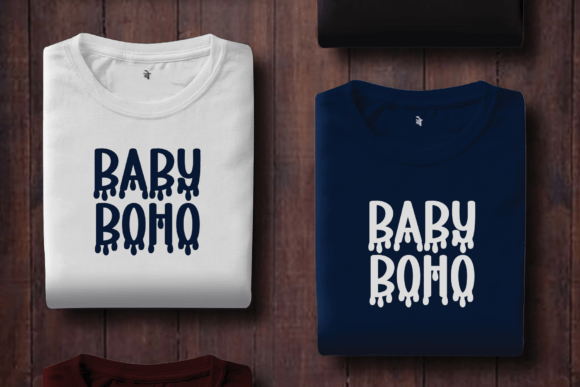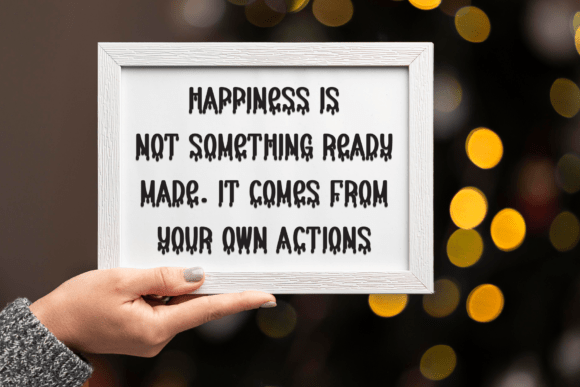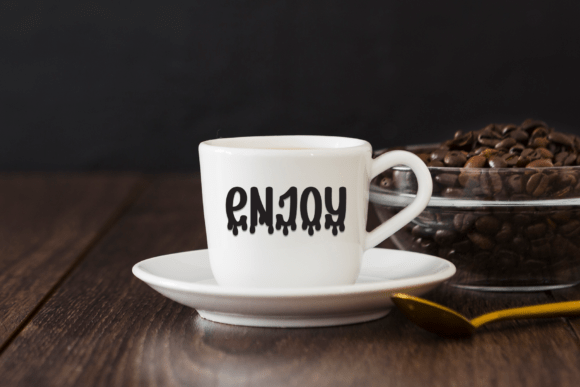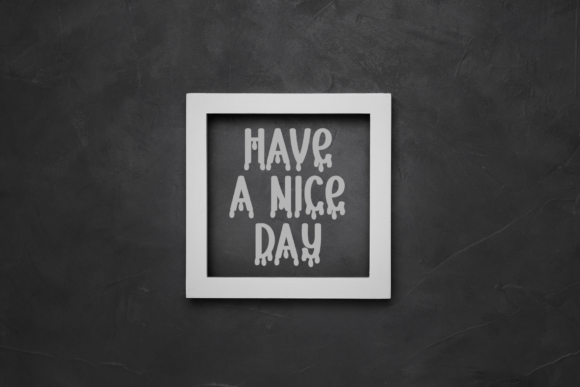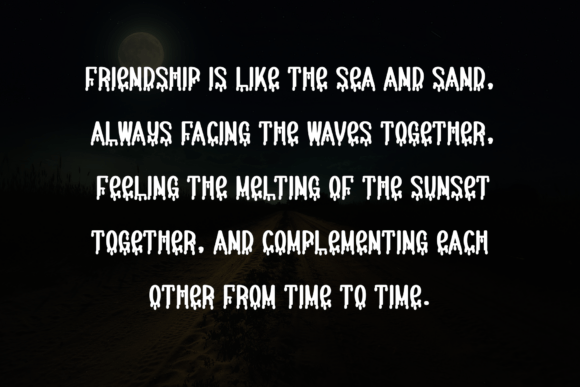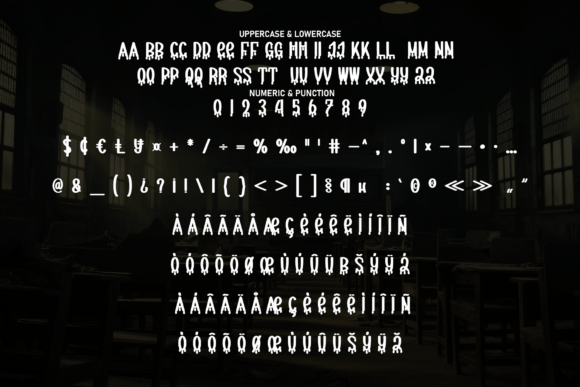
Introduction to Horror Varsity Font
Have you ever found yourself staring at a blank canvas, trying to conjure up the perfect design for your next creative project? The cursor blinks impatiently as your mind wanders through a sea of possibilities. Suddenly, the perfect font pops into your head, and you know exactly what you need to bring your vision to life. For many designers, this moment is the spark that ignites their creative fire.
One font that can help you achieve this moment is the enigmatic Horror Varsity Font. This unique display font is a game-changer for designers looking to add a touch of quirkiness to their work. With its high-quality design and transparent background, it’s the perfect resource for anyone seeking to elevate their creative project.
Key Features of Horror Varsity Font
- Unique, hand-drawn design with a spooky and eerie feel, perfect for creative projects.
- High-quality font with a transparent background, allowing for easy use in various creative projects.
- Features a bold, gothic-inspired design with intricate details and textures, making it perfect for horror-themed projects.
- Easy to use and customize, with a wide range of styling options to suit your creative project’s needs.
Honest Review: Horror Varsity Font
I recently stumbled upon the Horror Varsity Font while searching for a free download to enhance my design project. Initially, I was drawn to its unique, retro aesthetic and high quality design. After using it in a few creative projects, I was impressed by its versatility and range of applications.
- ✨ Unique, distressed design that adds a vintage touch to any project.
- ✨ High-quality design that’s perfect for print and digital projects.
- ✨ Transparent background makes it easy to use in various design scenarios.
- ⚠️ Limited character set, which may not be suitable for longer text-based projects.
- ⚠️ May not be the best choice for projects that require a clean, minimalist design.
Overall, I’m quite impressed with the Horror Varsity Font. It’s a great addition to any designer’s toolkit, especially for those working on creative projects that require a unique, high-quality font. With its free download and transparent background, it’s an excellent resource to have on hand.
To get the most out of the Horror Varsity Font, use it in creative projects that require a high-quality, bold font. You can also pair it with other fonts to create a unique design. Additionally, make sure to use a transparent background to ensure the font stands out.
The Horror Varsity Font is commonly used in horror-themed designs, such as movie posters, book covers, and video game graphics. It’s also suitable for use in other creative projects that require a bold, attention-grabbing font.